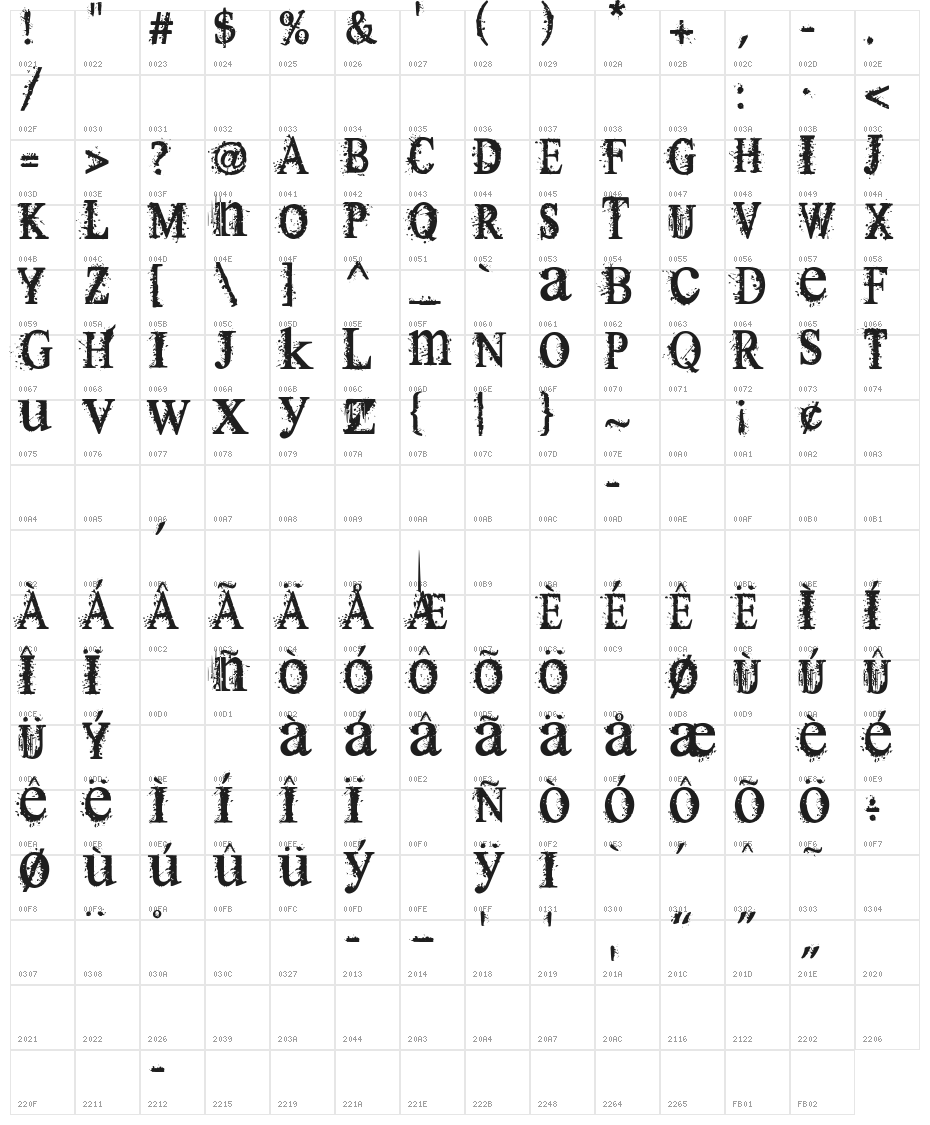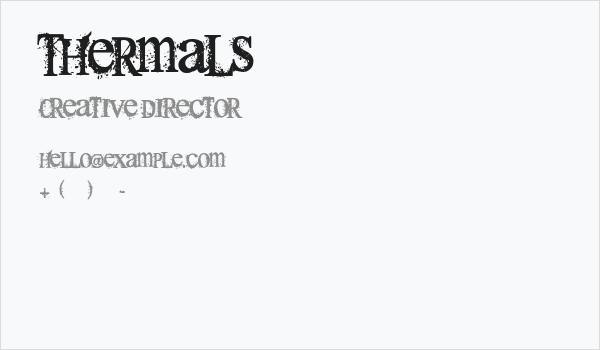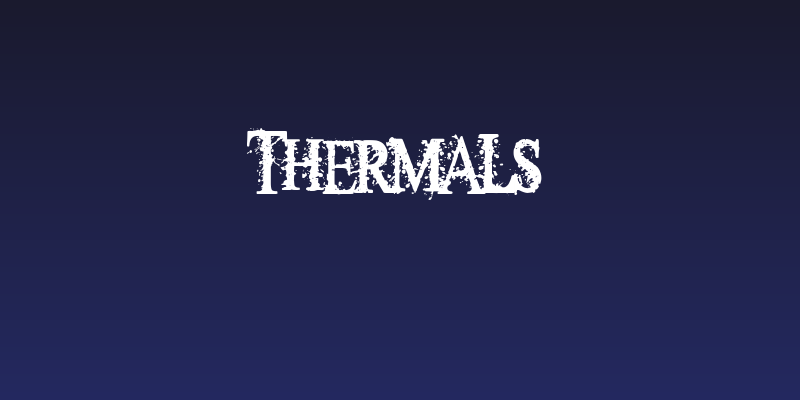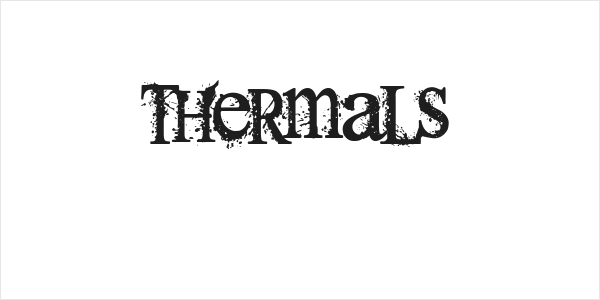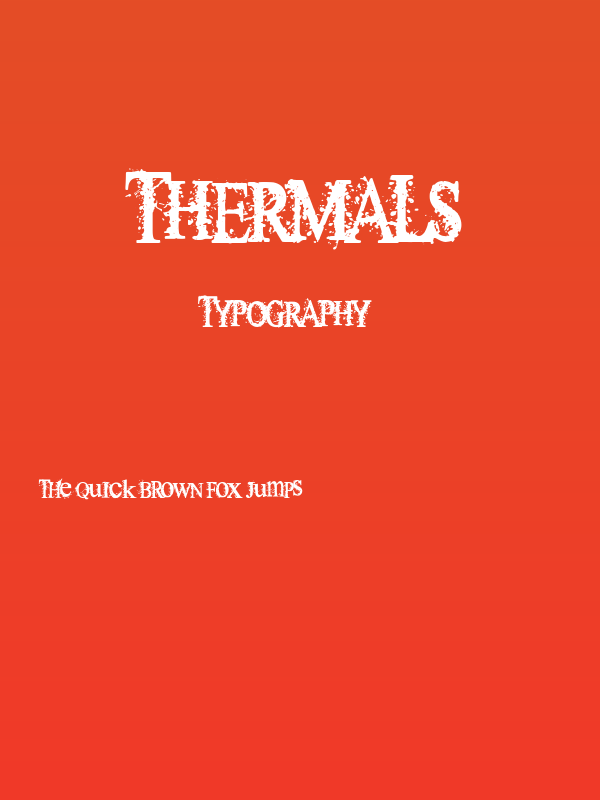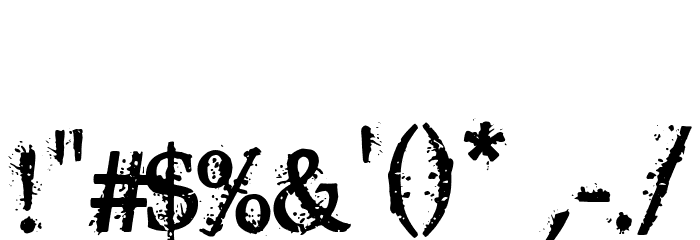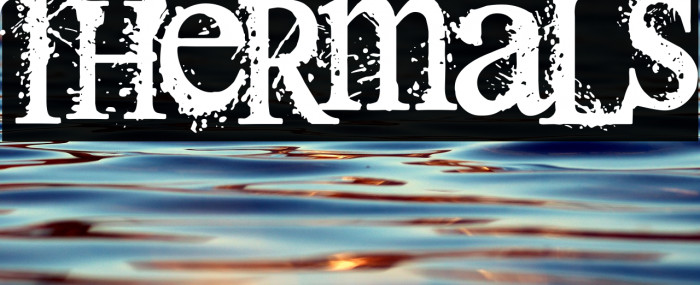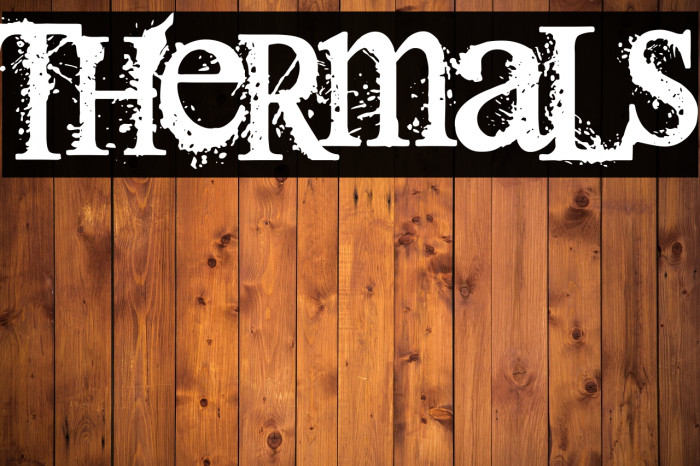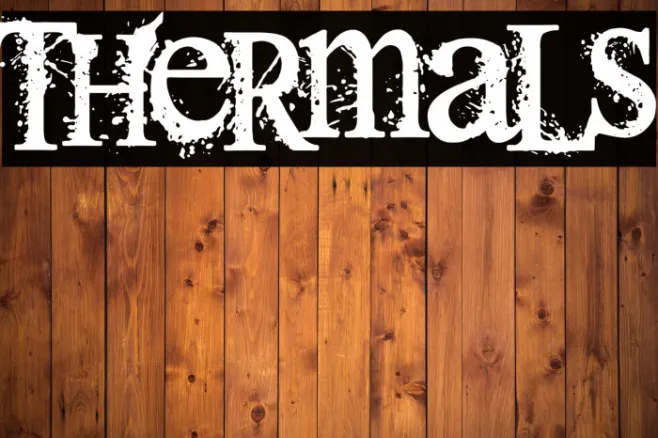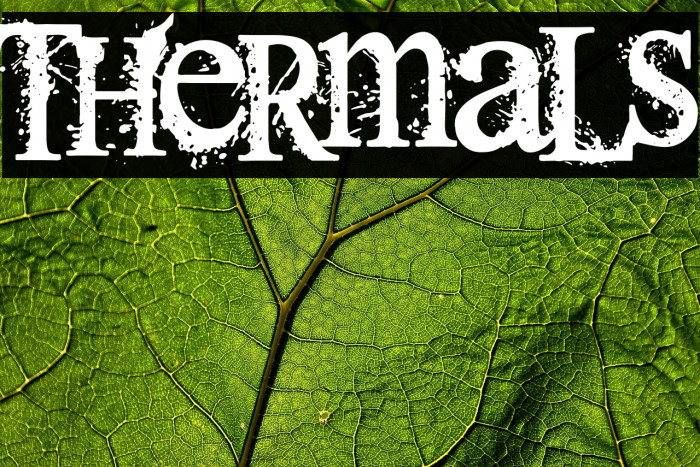
Thermals Font
Thermals Description
This font exhibits a distressed and grungy aesthetic, characterized by its rough, textured edges and uneven strokes. The letters appear as if they have been weathered or eroded, giving them a rugged, worn-out look. The uppercase and lowercase letters maintain a consistent style, with irregularities that add to the overall chaotic feel. The numerals and special characters follow the same distressed pattern, ensuring a cohesive appearance across all glyphs. This font is ideal for projects that require a bold, impactful statement with a touch of edginess.
| Overall Style | Grunge, Distressed |
| Proposed Projects | Ideal for album covers, posters, urban-themed designs, or any project needing a gritty, bold statement. |